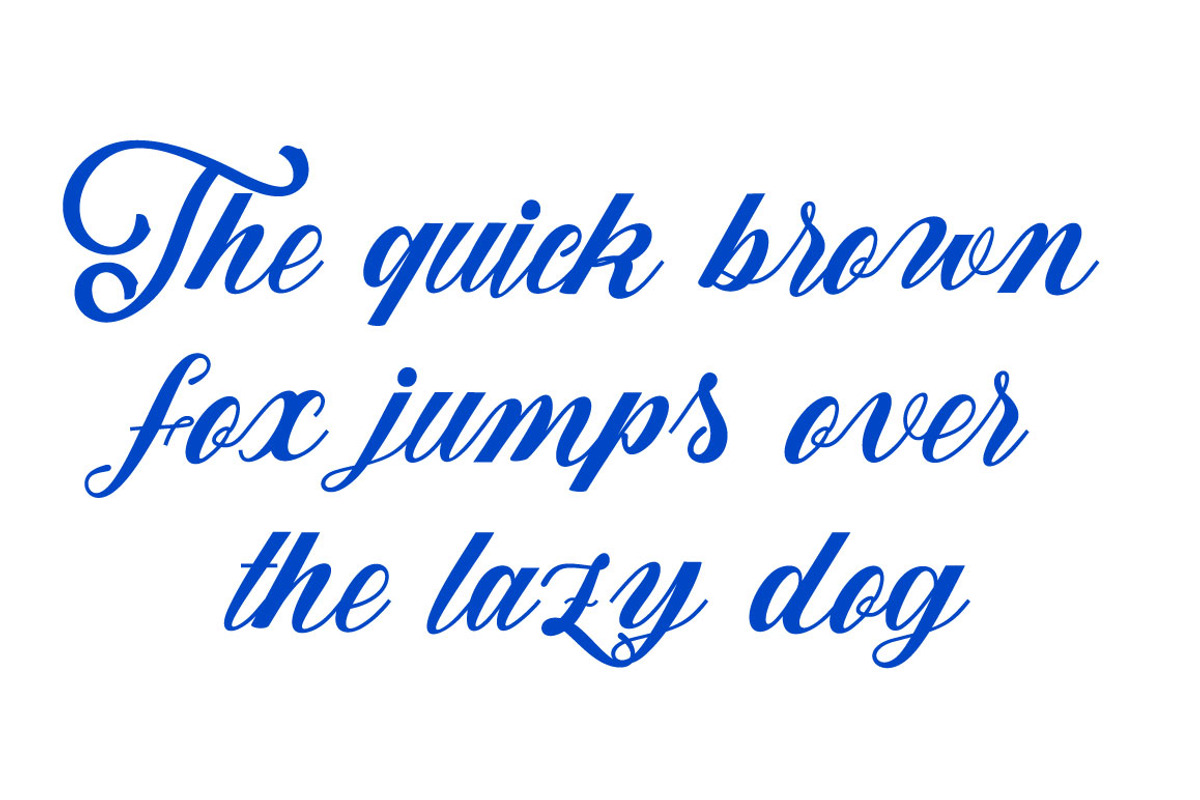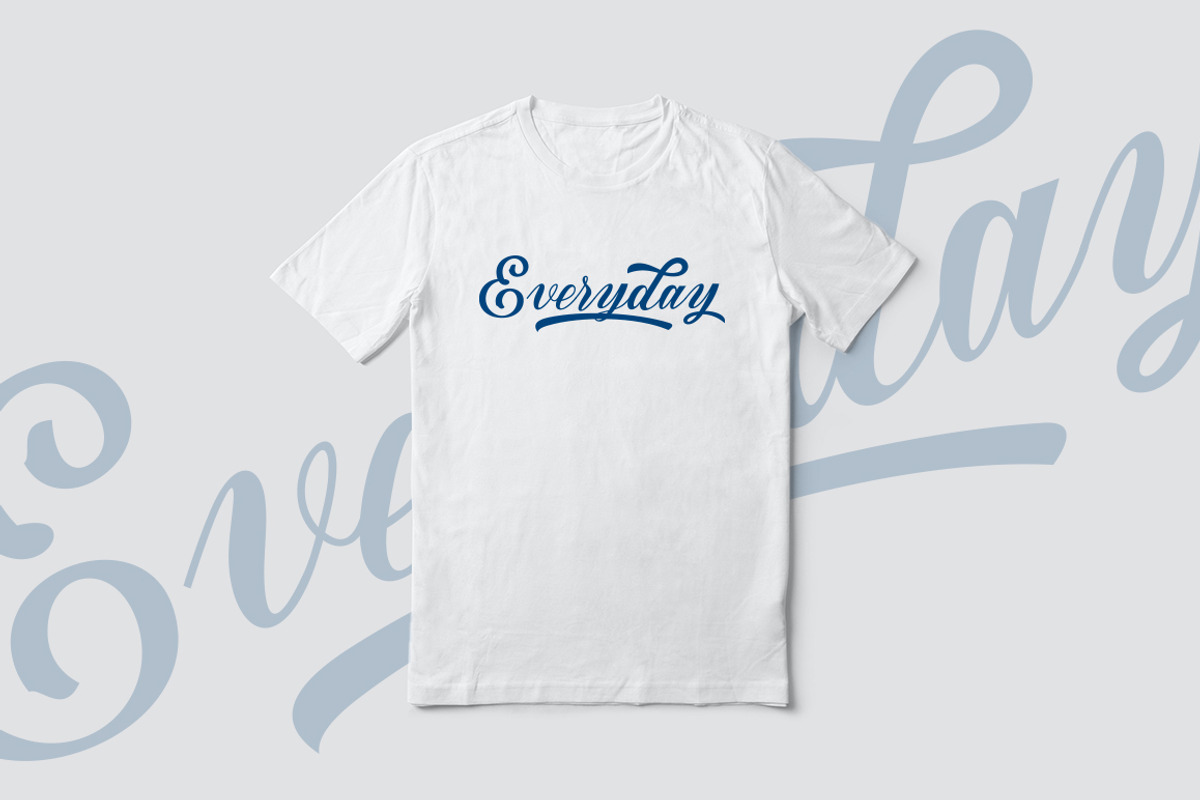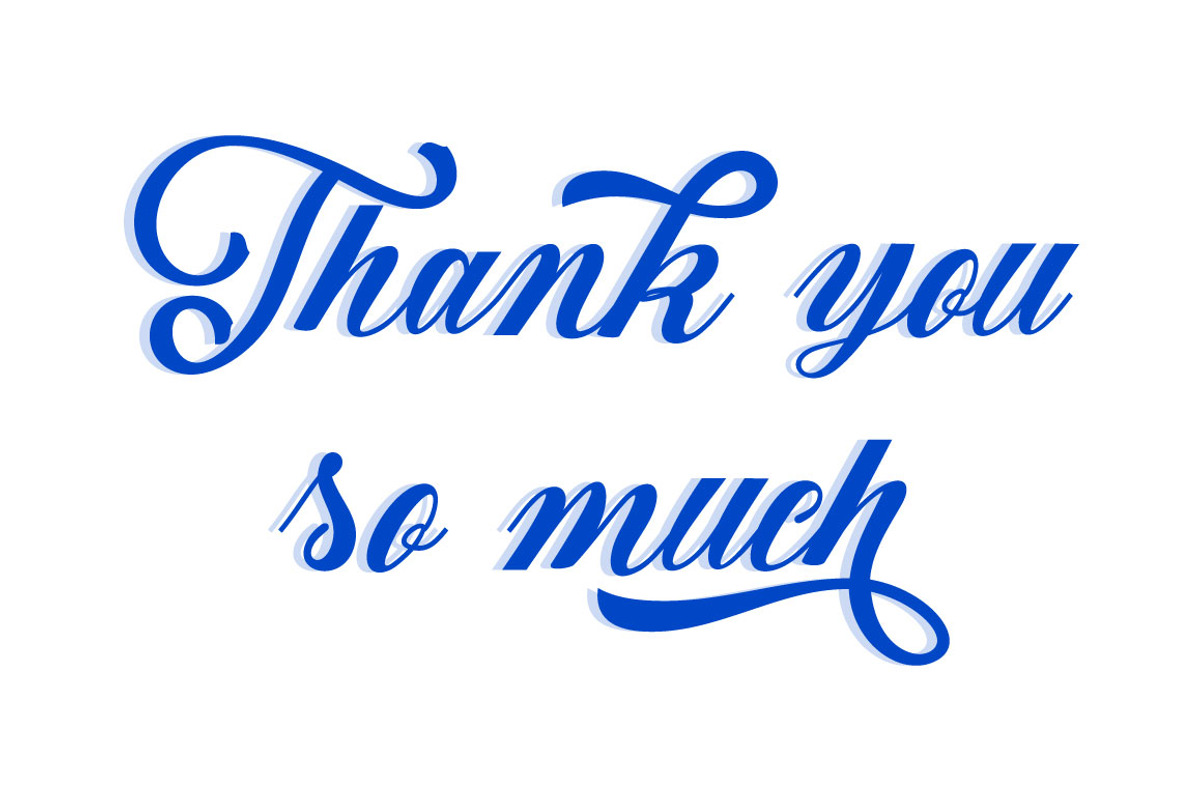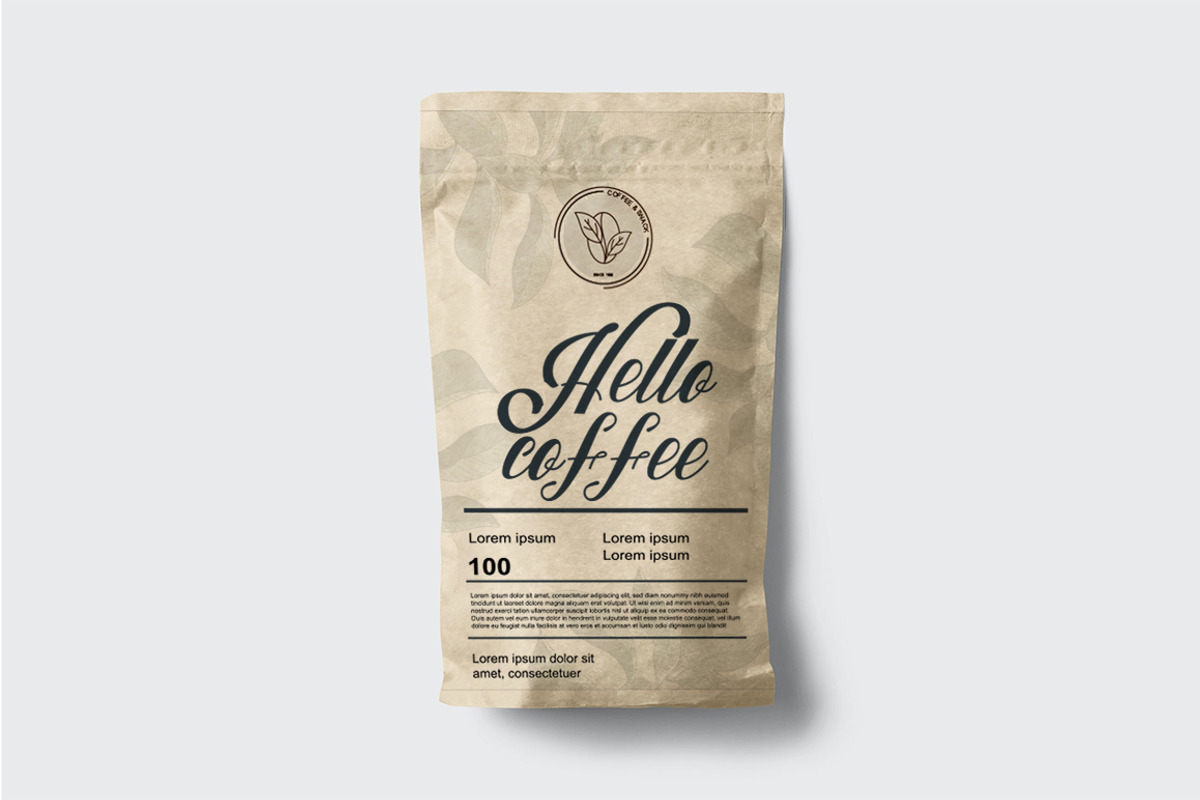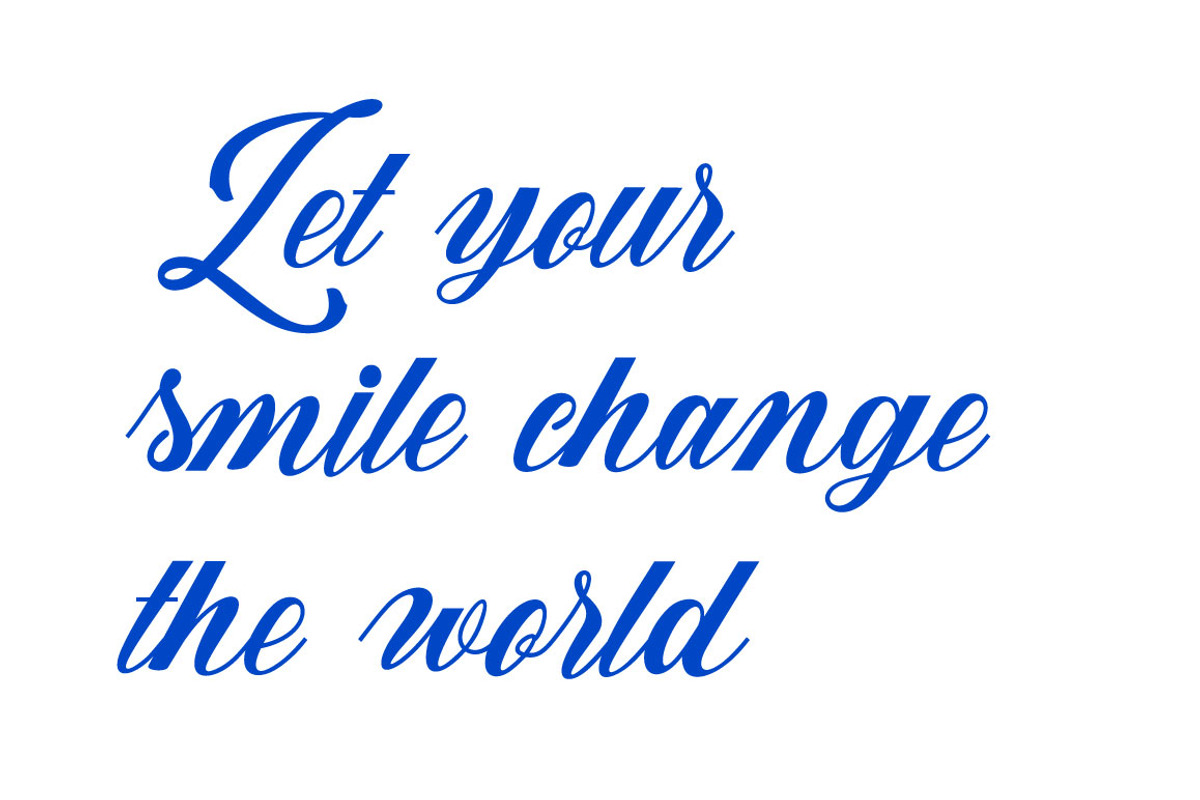
Heartbeat
Heartbeat modern script with a handmade calligraphy style, decorative characters and a dancing baseline! So beautiful on invitation like greeting cards, branding materials, business cards, quotes, posters, and more!!
Heartbeat come with 409+ glyphs. The alternative characters were divided into several Open Type features such as Swash, Stylistic Sets, Stylistic Alternates, and Ligature. The Open Type features can be accessed by using Open Type savvy programs such as Adobe Illustrator, Adobe InDesign, Adobe Photoshop Corel Draw X version, And Microsoft Word. And this Font has given PUA unicode (specially coded fonts). so that all the alternate characters can easily be accessed in full by a craftsman or designer.
Heartbeat Features :
Uppercase & Lowercase International Languange & Symbols Support Punctuation & Number PUA Unicode Range Standard Ligatures Discretionary Ligatures Stylistic Alternates Stylistic Set 1-23: